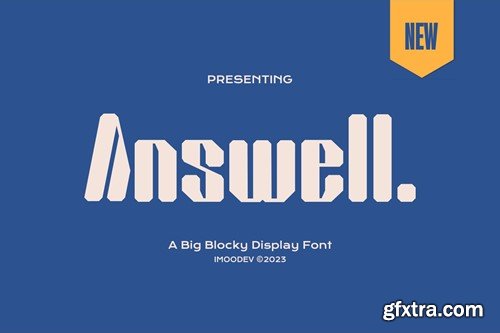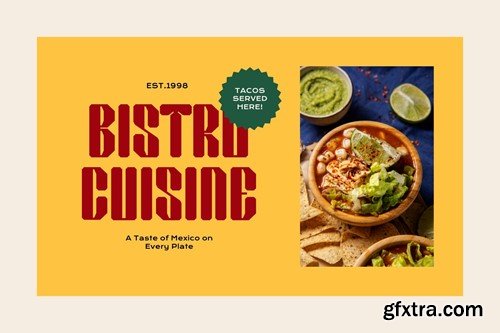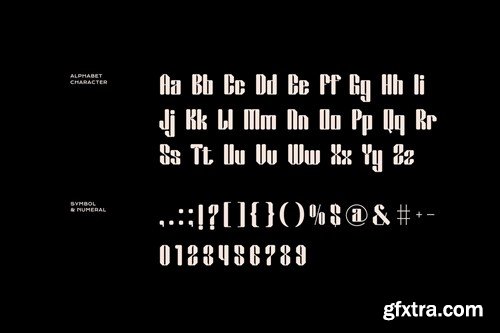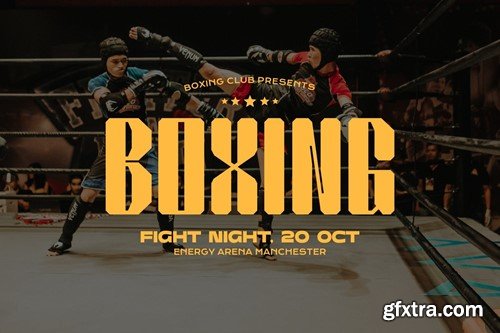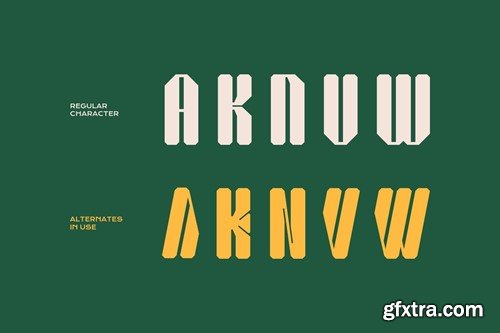
安塞尔 - 一个大块状的显示字体 GHRAA8U
Answell - A Big Blocky Display Font
Answell is A big blocky display font that has smooth curves and a visual style a can embodies charm and elegance in every lettering, making your work look stunning and attractive. A versatile font that works in both uppercase and lowercase sizes, suitable for a wide variety of projects such as a display font for headings, logo fonts, invitations, branding, book covers, magazine layouts, card, product packaging, product mockup, mugs, posters, labels, editorials, art deco, and any type of advertising purpose. Includes: Features: Thank you for purchasing! Good luck designing! Regards, Imoodev